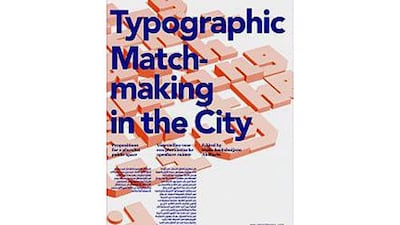
A documentary following teams of Dutch and Arab type designers, graphic designers, architects and product designers working to create five new Arabic fonts that match existing Latin fonts will be screened in Dubai on Saturday.
Typographic Matchmaking in the City was a design project commissioned by the Khatt Foundation, a Netherlands-based design research centre, in 2008. The three-year project saw five teams of designers taking inspiration from location in Dubai, Sharjah, Amsterdam, Pingjum and Doha to create fonts that merge the Latin and Arabic script. The project was documented by Dutch short films maker Jan de Bruin.
“The film is a documentation of the project we concluded in 2010,” says Huda Smitshuijzen AbiFares, founding creative director of the Khatt Foundation.
“We had an interdisciplinary theme in mind and wanted to make dual-script font families that could be applied in public spaces. The challenge was to make monumental scripts.”
“Dubai and Sharjah became our case studies because of the rapid urbanisation of these cities. And then we look at places like Amsterdam, which were developed a long time ago and haven’t changed that much for a variety.”
“What we saw on the streets were fonts that are meant for print. They are legible, but not very inspiring or new. So we tried to react to that in a way. We wanted to merge creativity and legibility with a new approach.”
She says using such innovative fonts in urban spaces could, in turn, promote creativity among people and start a conversation on different cultures and a dialogue through design.
AbiFares says the major challenge for the teams was to come together and agree on a concept.
“Some designs force two scripts in two dimension and there are scripts that dance together. The biggest challenge was to work from a distance and manage expectations,” she says.
The teams spent a week in Dubai and Sharjah, visiting Art Dubai, Al Bastakiya area, souqs and the creek.
“One team was inspired by the landscape, water coming int the land around the creek, the skyscrapers and the amount of repetition.”
Another team looked at the heritage and found the kufic script as a starting point.
“The Kufam font, for example, was inspired by scripted used on monumental architecture. It is a new form of kufi script and can be used as an art decor font. This is one of the legible fonts from this project.”
The Kufam typeface was created by Dutch type designer Artur Schman and Wael Morcos from Lebanon. The Arabic is inspired by early, seventh century, inscriptions and the Latin was taken from Dutch urban lettering of the 1920s.
The project was also followed by a book by the foundation which has comments by different designers about lettering public spaces and the sketches and themes that were a result of the research.
“The idea is to trigger possibilities. In the book, we have tried to show different possible applications of the font in public space for art,” says AbiFares.
“Like poetic text that can move on modular screens. Another one with perforated dotted lines that can be used on benches or walls of a souq.”